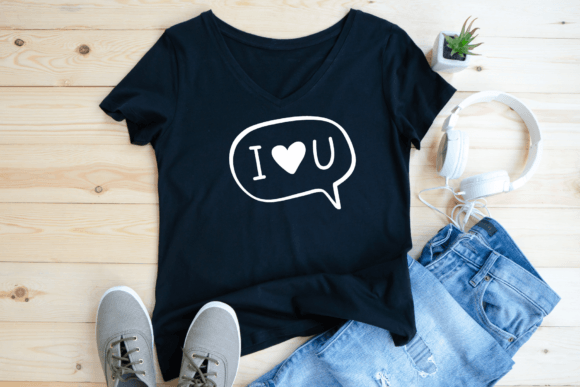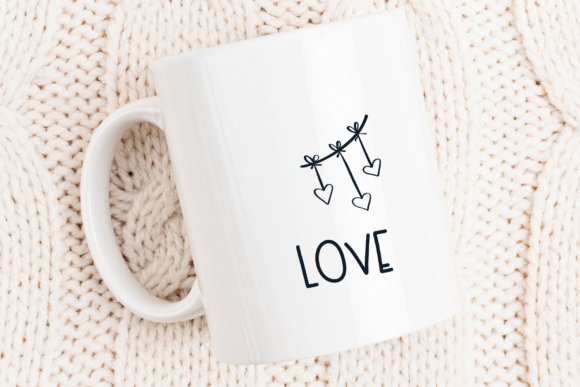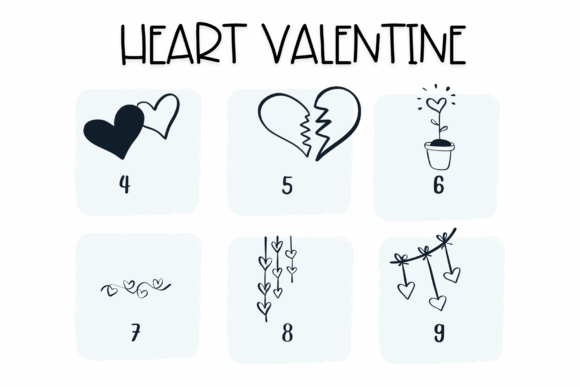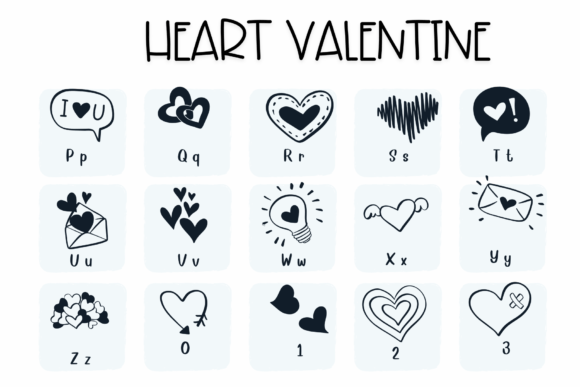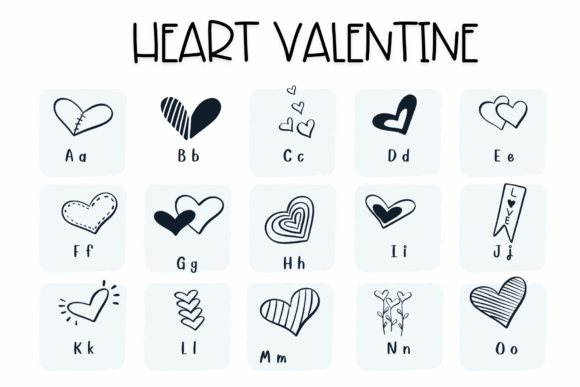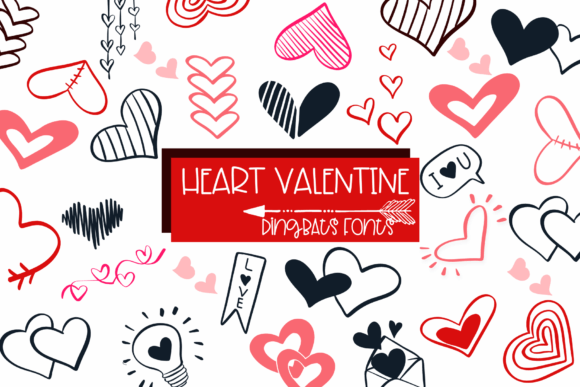
Introducing Heart Valentine Font: The Perfect Addition to Your Romantic Projects
Are you looking for a font that exudes love and romance? Look no further than the Heart Valentine Font, a beautiful dingbats font designed to add a touch of warmth and affection to your creative projects. Whether you’re a designer, crafter, or DIY enthusiast, this font is sure to become a staple in your collection.
What is Heart Valentine Font?
Heart Valentine Font is a unique dingbats font that features a wide range of romantic-themed characters, including hearts, flowers, and other symbols of love. This font is perfect for adding a personal touch to your wedding invitations, DIY projects, crafts, decorations, logos, and many other creative endeavors.
Features of Heart Valentine Font
- Romantic theme: The Heart Valentine Font is designed with a romantic theme in mind, making it perfect for Valentine’s Day, weddings, anniversaries, and other special occasions.
- Dingbats characters: This font features a wide range of dingbats characters, including hearts, flowers, and other symbols of love.
- Scalable: This font is scalable, allowing you to use it for a wide range of projects, from small crafts to large-scale designs.
Uses for Heart Valentine Font
The Heart Valentine Font is versatile and can be used for a wide range of projects, including:
- Wedding invitations: Add a touch of romance to your wedding invitations with this beautiful font.
- DIY projects: Use the Heart Valentine Font to add a personal touch to your DIY projects, such as scrapbooking, card making, and crafts.
- Crafts: This font is perfect for crafters who want to add a romantic touch to their projects, such as knitting, sewing, and paper crafting.
- Decorations: Use the Heart Valentine Font to create beautiful decorations for your home or office, such as signs, banners, and garlands.
- Logos: This font can also be used to create beautiful logos for businesses, such as florists, wedding planners, and gift shops.
Tips for Using Heart Valentine Font
Here are some tips for using the Heart Valentine Font:
- Mix and match: Experiment with different characters and sizes to create a unique look.
- Pair with other fonts: Pair the Heart Valentine Font with other fonts to create a beautiful contrast.
- Use in combination with images: Use the Heart Valentine Font in combination with images, such as photos or illustrations, to create a beautiful design.